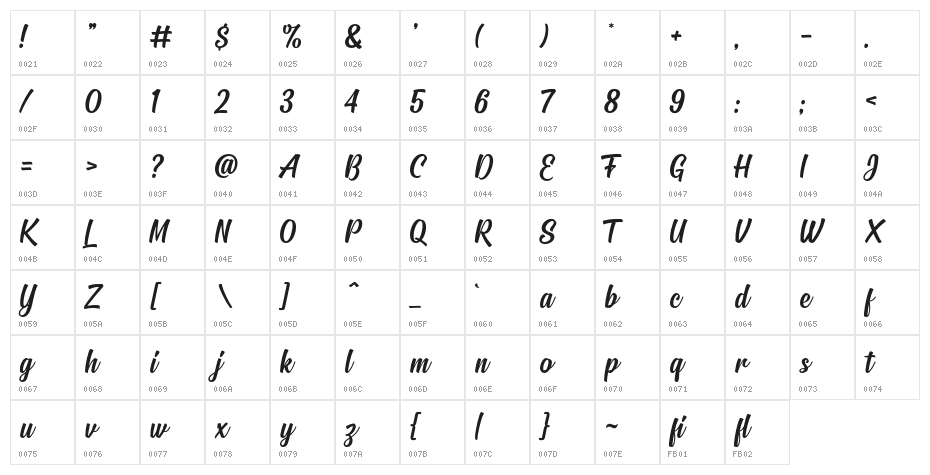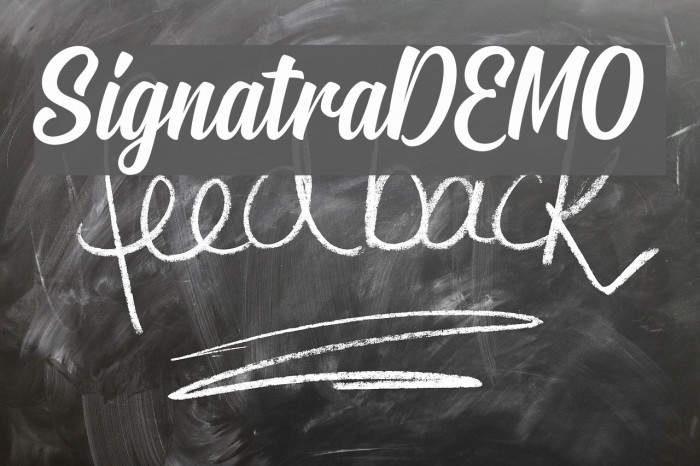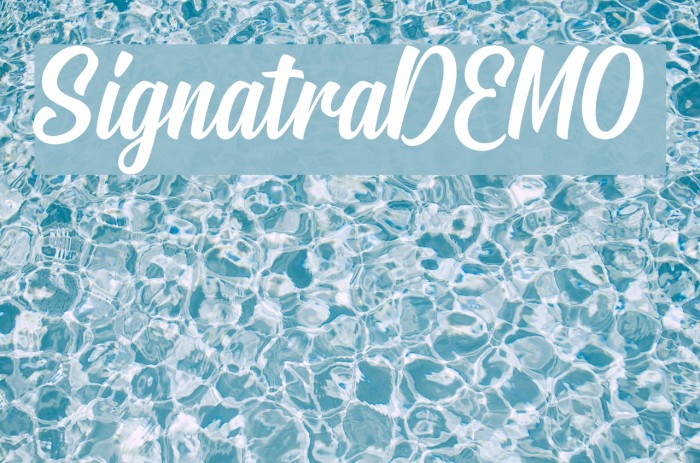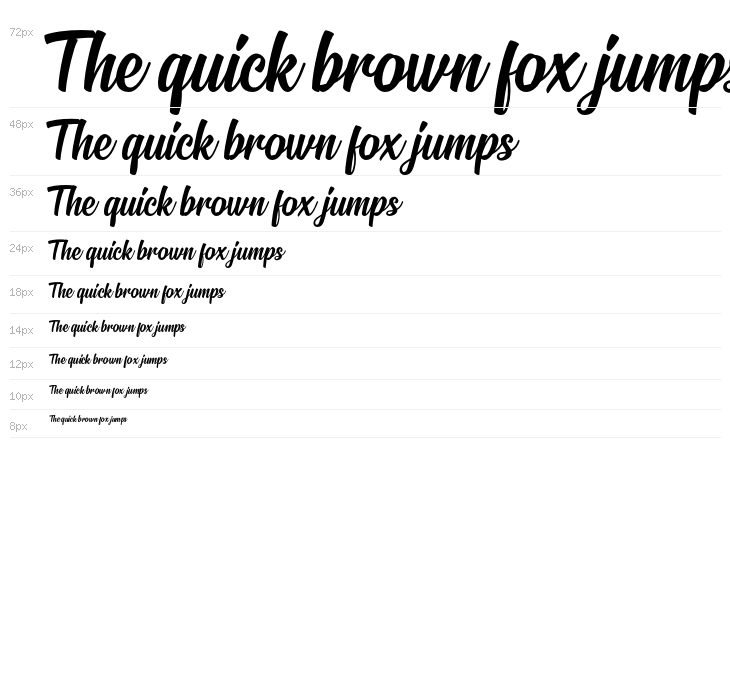
SignatraDEMO Font
SignatraDEMO Description
This font features a dynamic and flowing script style, characterized by its bold and expressive strokes. The uppercase letters are slightly slanted, giving a sense of movement and elegance, while the lowercase letters maintain a consistent flow with smooth curves and connections. The numerals are bold and clear, matching the overall energetic style of the font. Special characters are well-integrated, maintaining the font's cohesive appearance. This font is ideal for projects that require a personal touch or a sense of sophistication and flair.